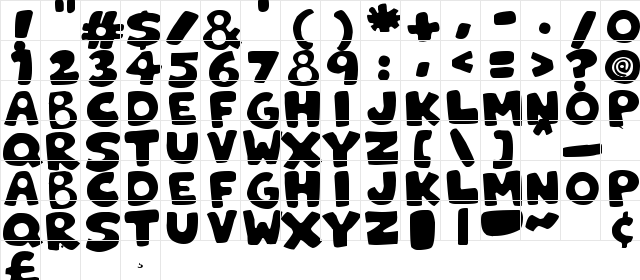
Patchwork Stitchlings Color Regular
Design Context for Patchwork Stitchlings Color Typeface
Patchwork Stitchlings Color is a composed and adaptable typeface that performs quietly and consistently across a wide range of design contexts.